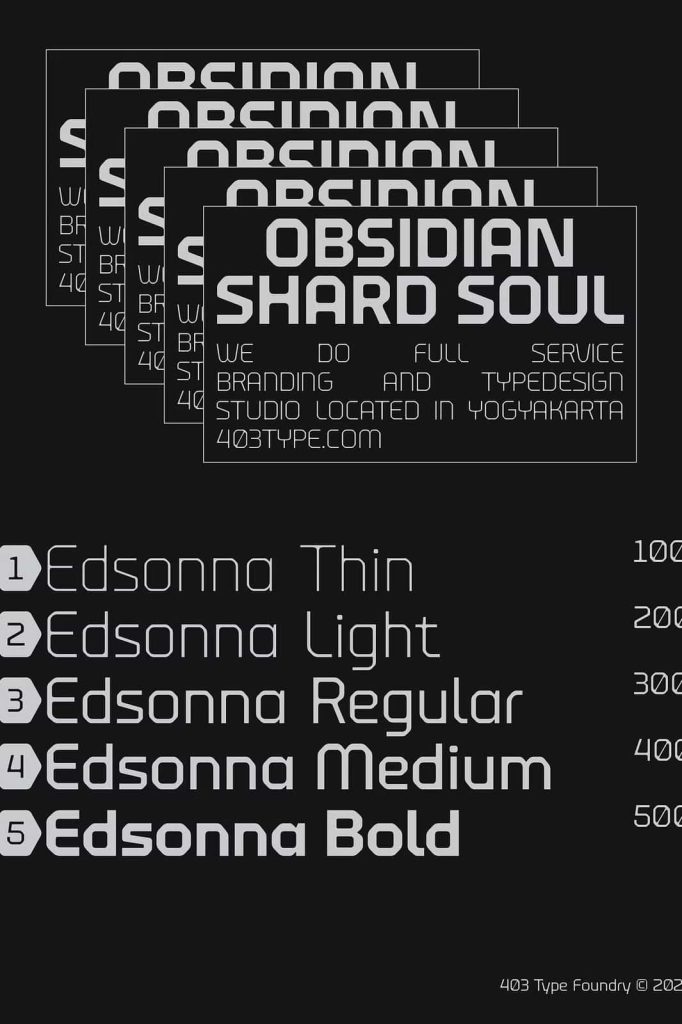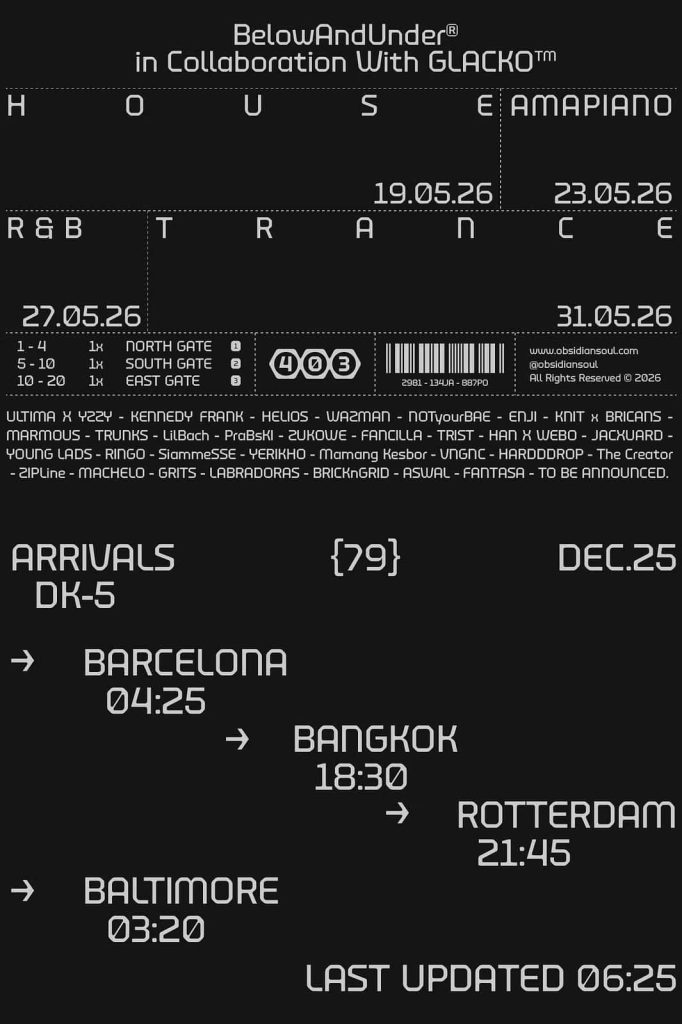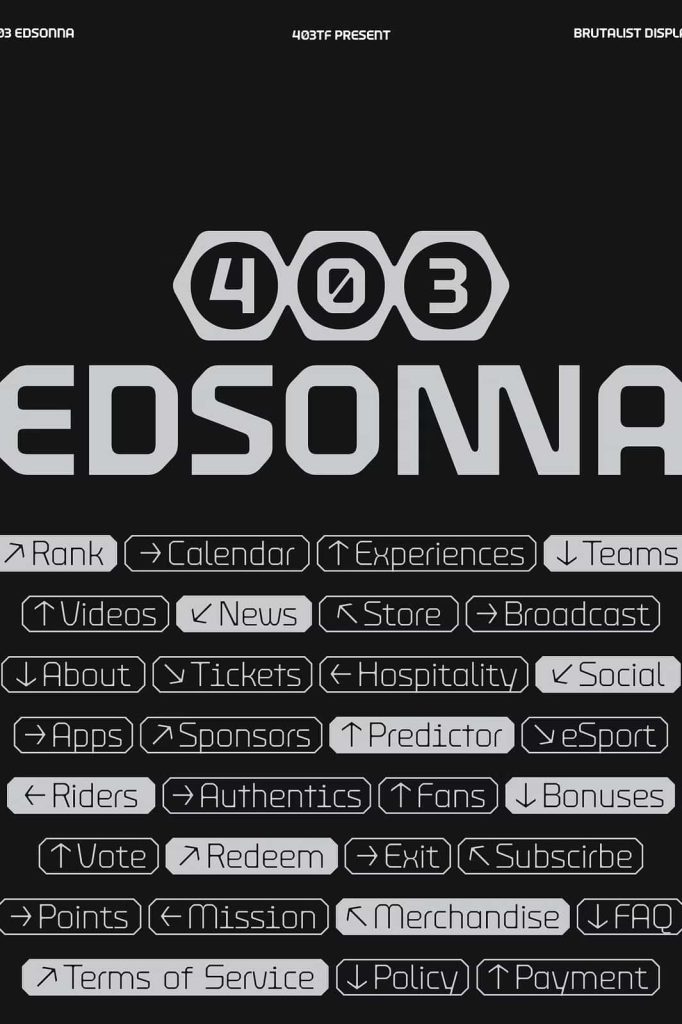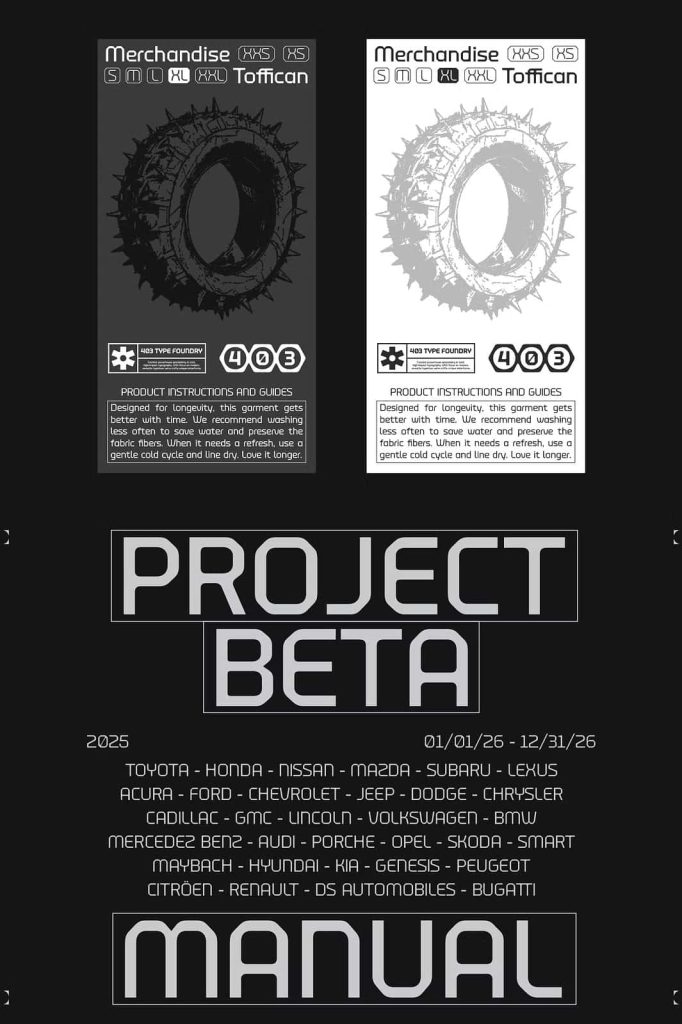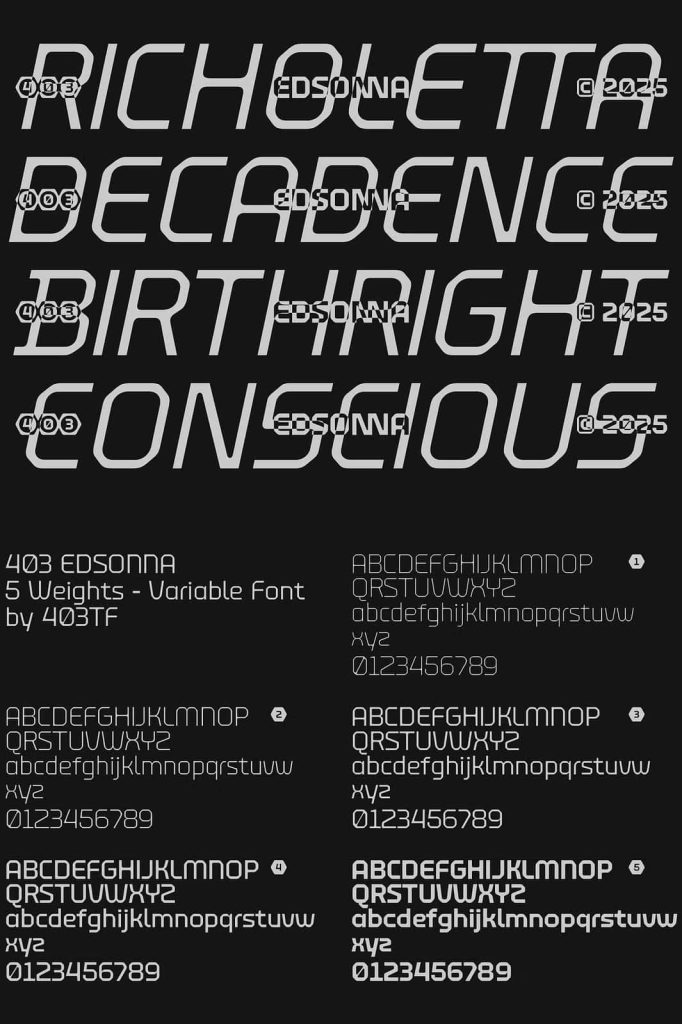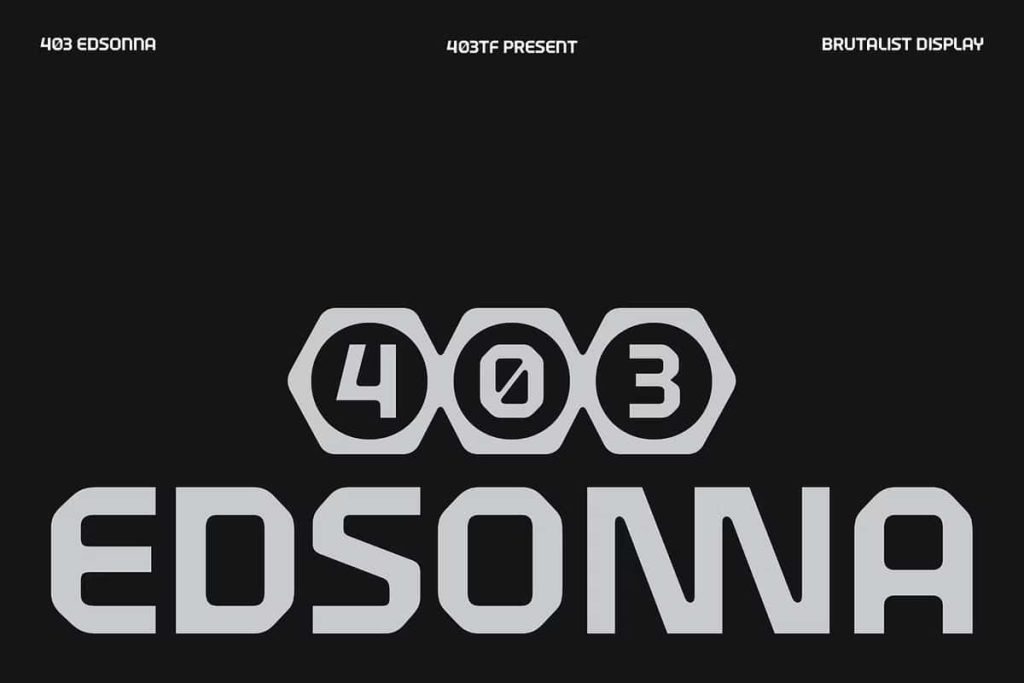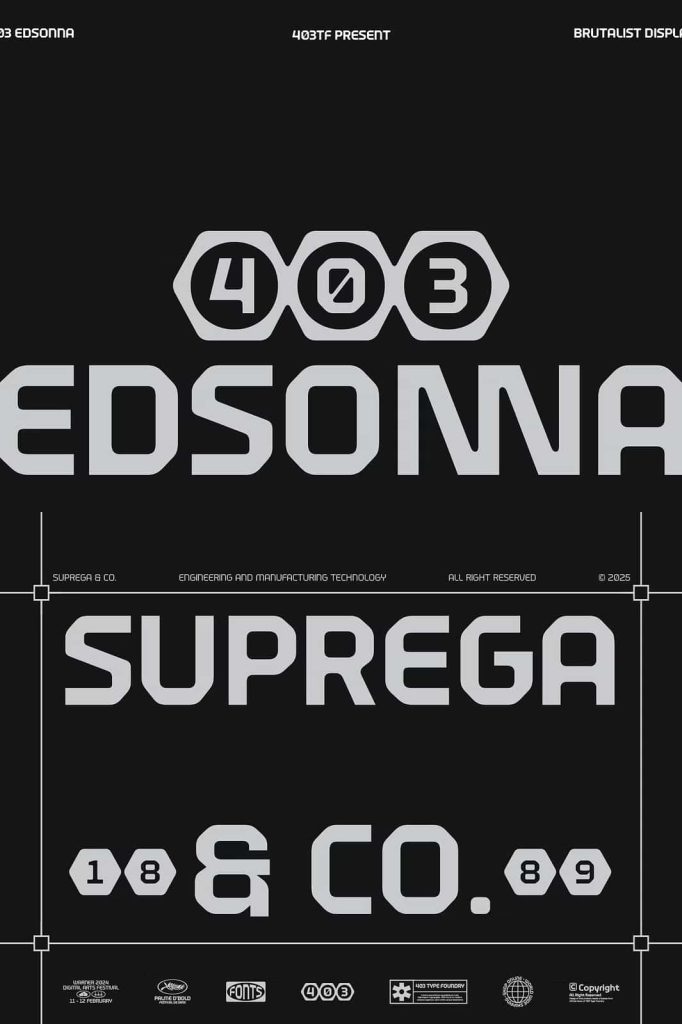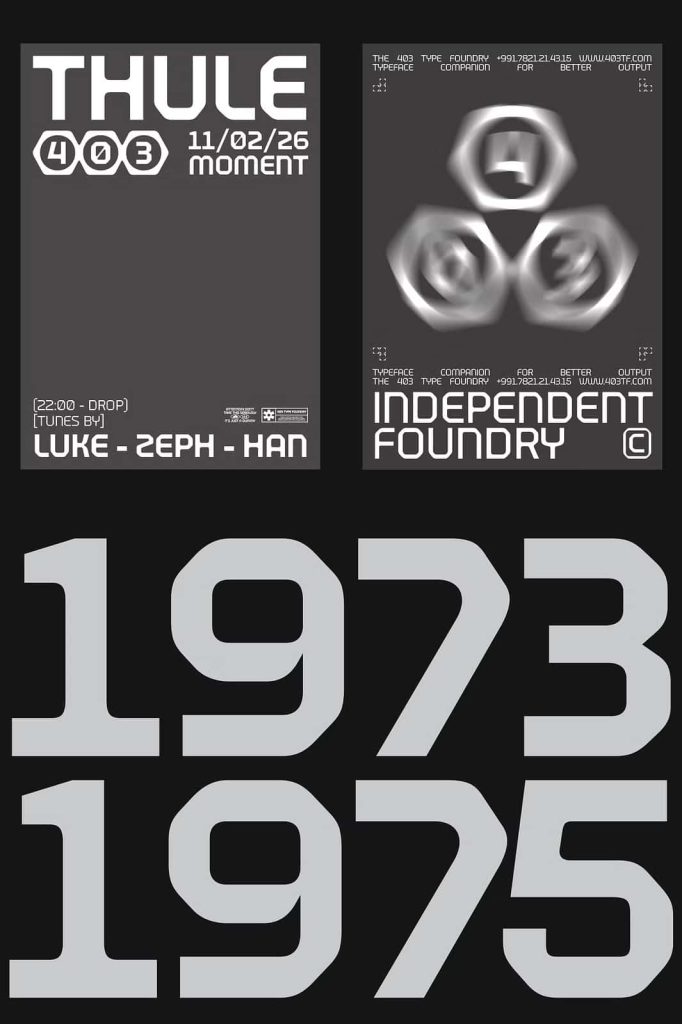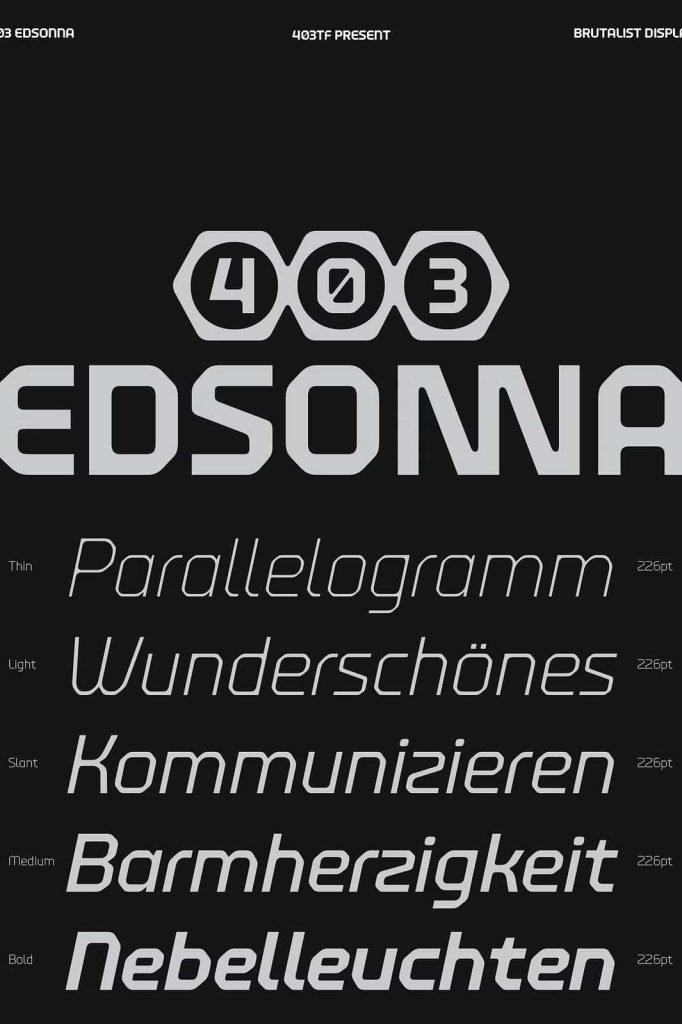
403 Edsonna Variable Typeface – Industrial Precision Meets Modern Design Innovation
403 Edsonna is a powerful variable typeface designed for creatives who demand more than ordinary typography. Built at the crossroads of industrial functionality and radical modernism, this typeface delivers a commanding visual presence that transforms every design into a structured and purposeful experience. Rather than simply displaying text, 403 Edsonna actively shapes the environment around it, creating a bold framework that enhances communication and strengthens visual hierarchy.
With its highly engineered modular construction, precision-focused detailing, and contemporary “Obsidian” aesthetic, 403 Edsonna gives designers the tools to create impactful visual systems that feel both technical and forward-thinking. Whether used in branding, editorial design, digital interfaces, product packaging, or streetwear graphics, this typeface consistently projects authority, confidence, and innovation.
Designed for Modern Visual Communication
403 Edsonna embraces a design philosophy centered on clarity, structure, and purpose. Every character is carefully crafted to support high-performance typography across a wide range of creative applications. The typeface combines geometric consistency with industrial-inspired details, resulting in a distinctive visual language that immediately captures attention.
Its variable font technology offers enhanced flexibility, allowing designers to adapt weight, style, and visual impact according to project requirements. This adaptability makes Edsonna an exceptional solution for brands and creatives who need typography that performs effectively across both print and digital environments.
Key Characteristics of 403 Edsonna
- Advanced variable typeface technology.
- Strong modular construction for consistent visual systems.
- Industrial-inspired design language.
- Technical detailing that enhances readability and impact.
- Futuristic and modern Obsidian aesthetic.
- Ideal for branding, editorial, fashion, and digital applications.
- Designed to communicate authority and precision.
- Excellent performance across multiple design scales.
A Typeface Built for Authority and Precision
In today’s competitive visual landscape, typography plays a critical role in establishing brand identity and user engagement. 403 Edsonna helps designers create strong visual narratives through its commanding letterforms and structured appearance. Every glyph contributes to a cohesive system that feels deliberate, organized, and technologically advanced.
The typeface excels in projects that require a professional and authoritative tone. Its bold character shapes and calculated proportions create a sense of reliability and confidence, making it particularly effective for technology brands, industrial companies, architecture firms, esports organizations, and innovative startups seeking a modern visual identity.
Perfect for High-Impact Creative Projects
403 Edsonna adapts seamlessly to a variety of creative disciplines. Its versatility allows designers to push boundaries while maintaining consistency and readability. The typeface performs exceptionally well in both large-scale display settings and detailed information-rich layouts.
Recommended Applications
- Technology and software branding.
- Industrial and manufacturing visual identities.
- Streetwear and fashion graphics.
- Editorial headlines and magazine layouts.
- User interface and digital product design.
- Packaging and product presentation.
- Event branding and promotional campaigns.
- Motion graphics and multimedia projects.
- Signage and environmental design systems.
- Futuristic concept and experimental design work.
Variable Flexibility for Creative Freedom
One of the defining strengths of 403 Edsonna is its variable font architecture. This technology enables designers to create a broader range of visual expressions without sacrificing consistency. By adjusting font attributes dynamically, creatives can build sophisticated typographic systems that remain cohesive across multiple platforms and formats.
This flexibility not only improves workflow efficiency but also expands creative possibilities. Designers can establish unique visual rhythms, strengthen hierarchy, and tailor typography to meet specific communication objectives while preserving the distinctive Edsonna identity.
Technical Excellence Meets Contemporary Style
403 Edsonna successfully bridges the gap between technical precision and modern aesthetics. Its structured forms communicate discipline and expertise, while its contemporary design elements introduce a fresh and progressive visual tone. This balance makes the typeface equally suitable for corporate environments and experimental creative projects.
The result is a versatile design asset that empowers brands to appear innovative, confident, and future-ready. Whether creating immersive digital experiences, impactful advertising campaigns, or distinctive merchandise collections, Edsonna provides the typographic foundation necessary for powerful communication.
For designers who value precision, structure, and innovation, 403 Edsonna delivers a distinctive typographic experience that stands out in crowded visual environments. It creates designs that demand attention, establish authority, and communicate with unmistakable intent.